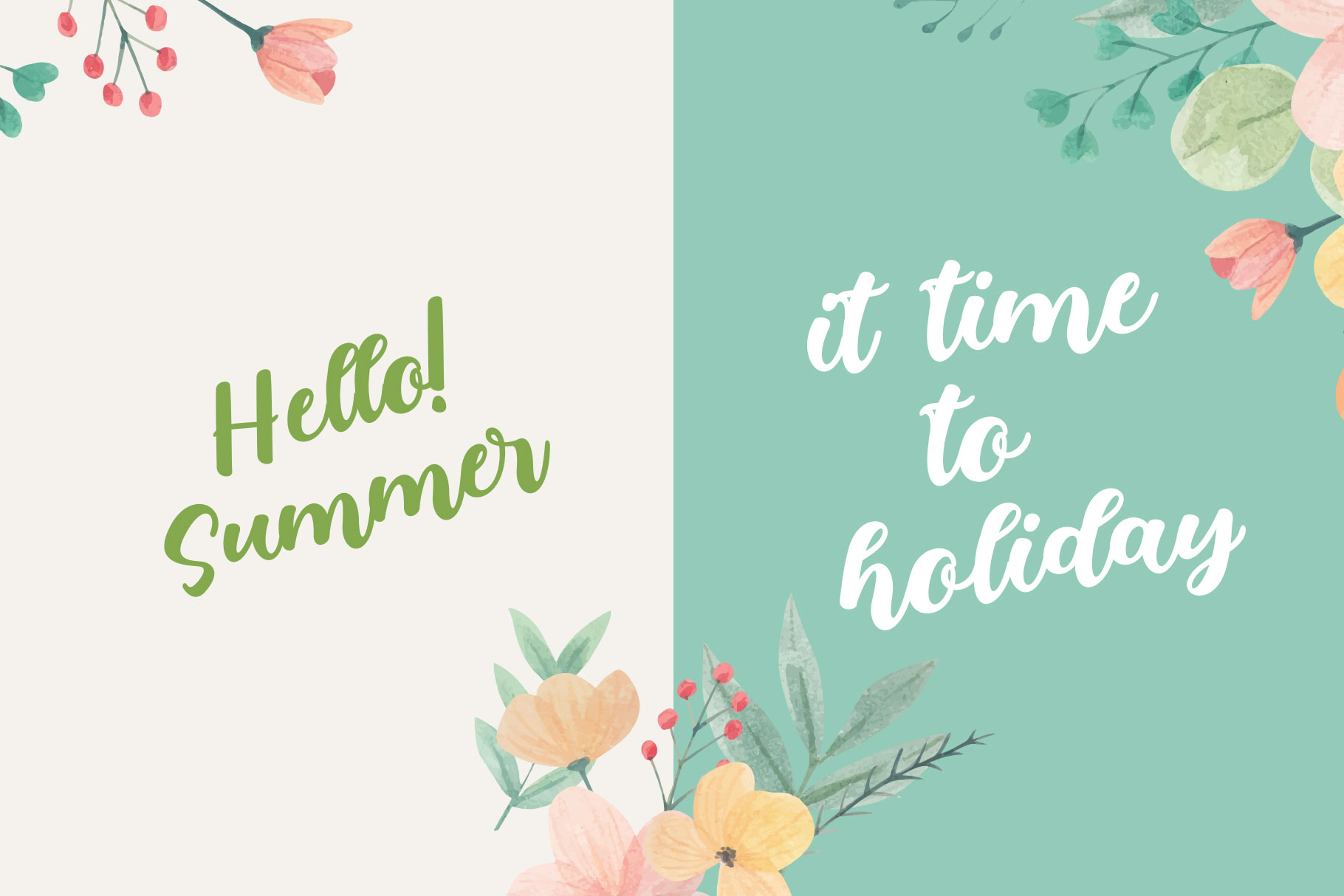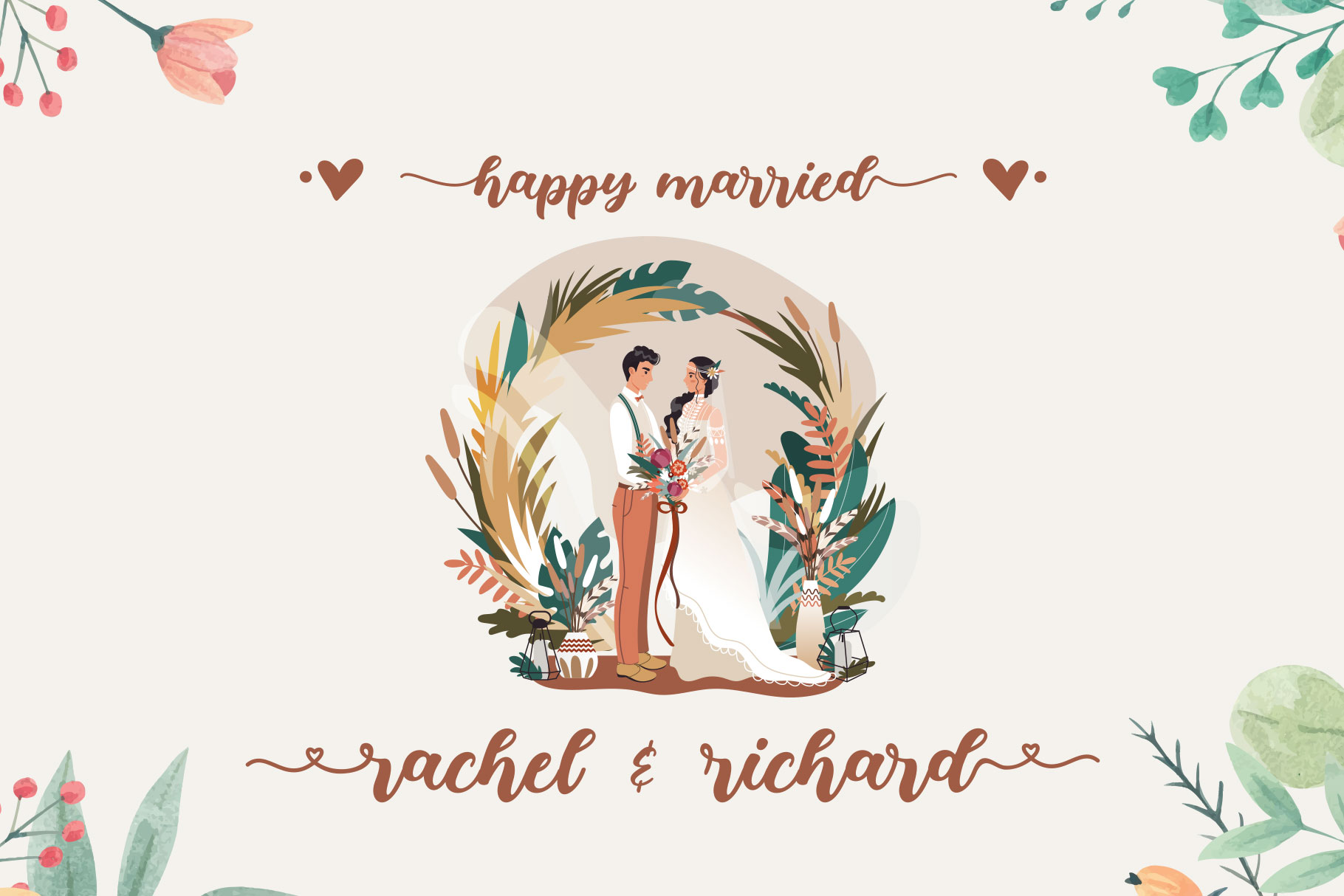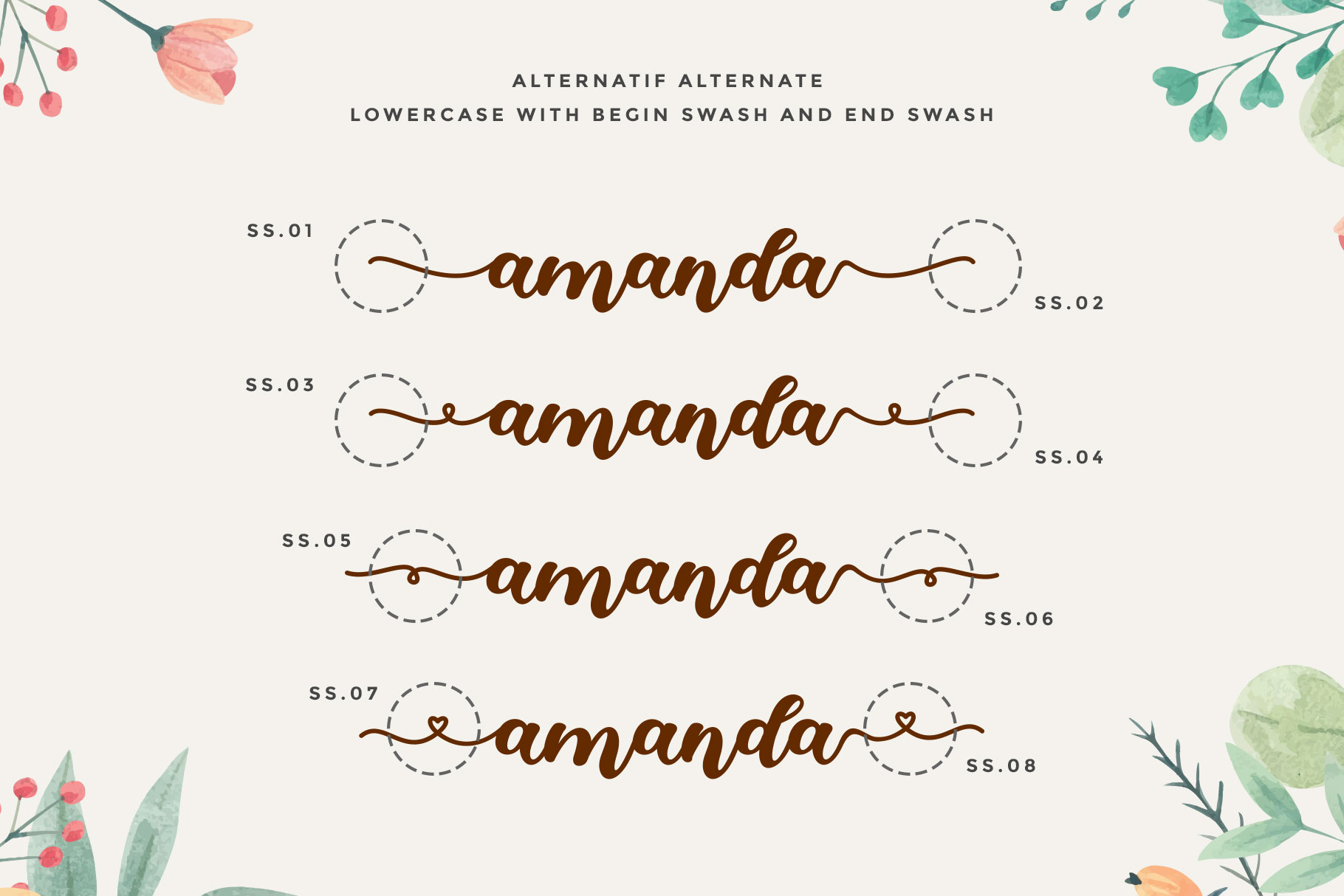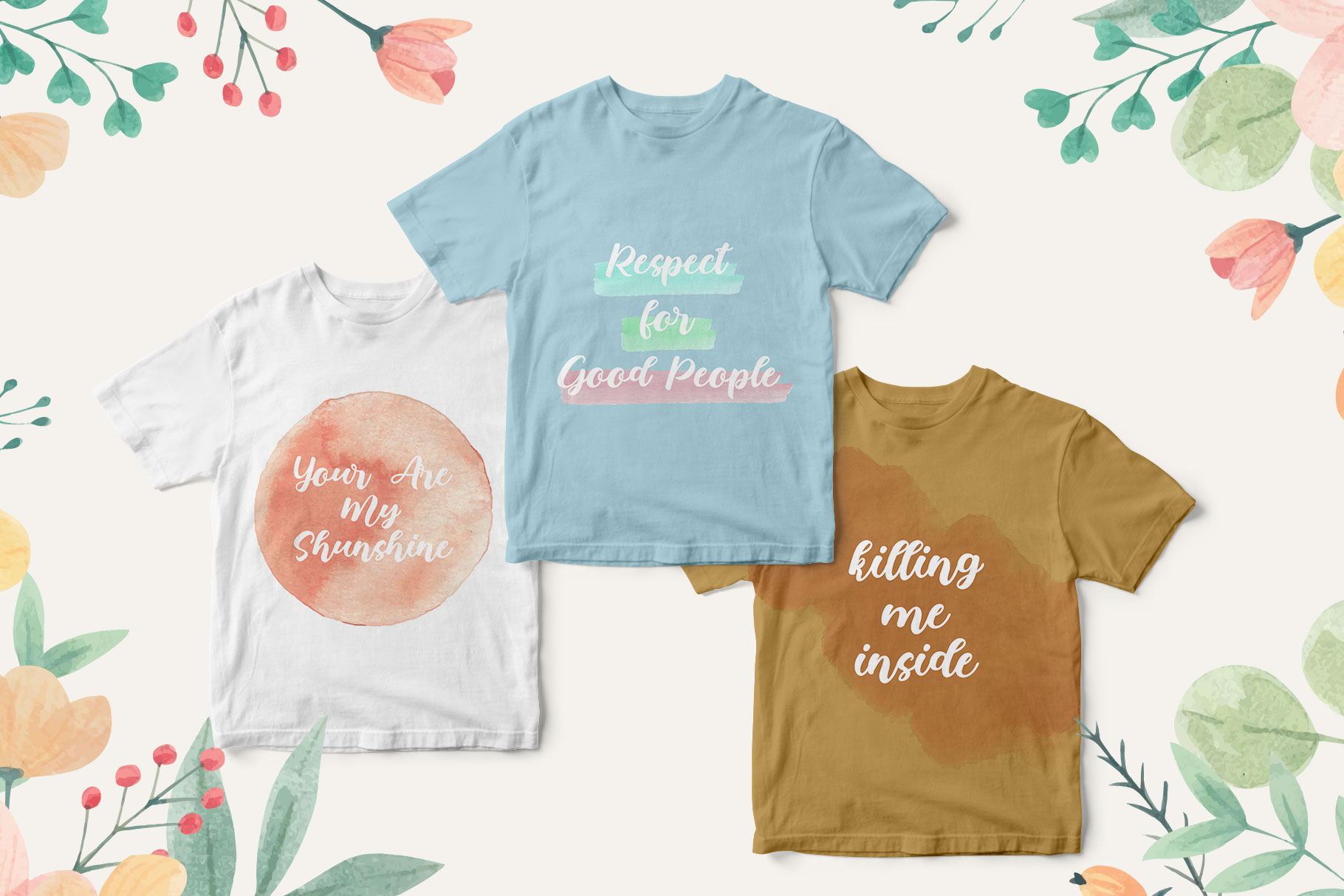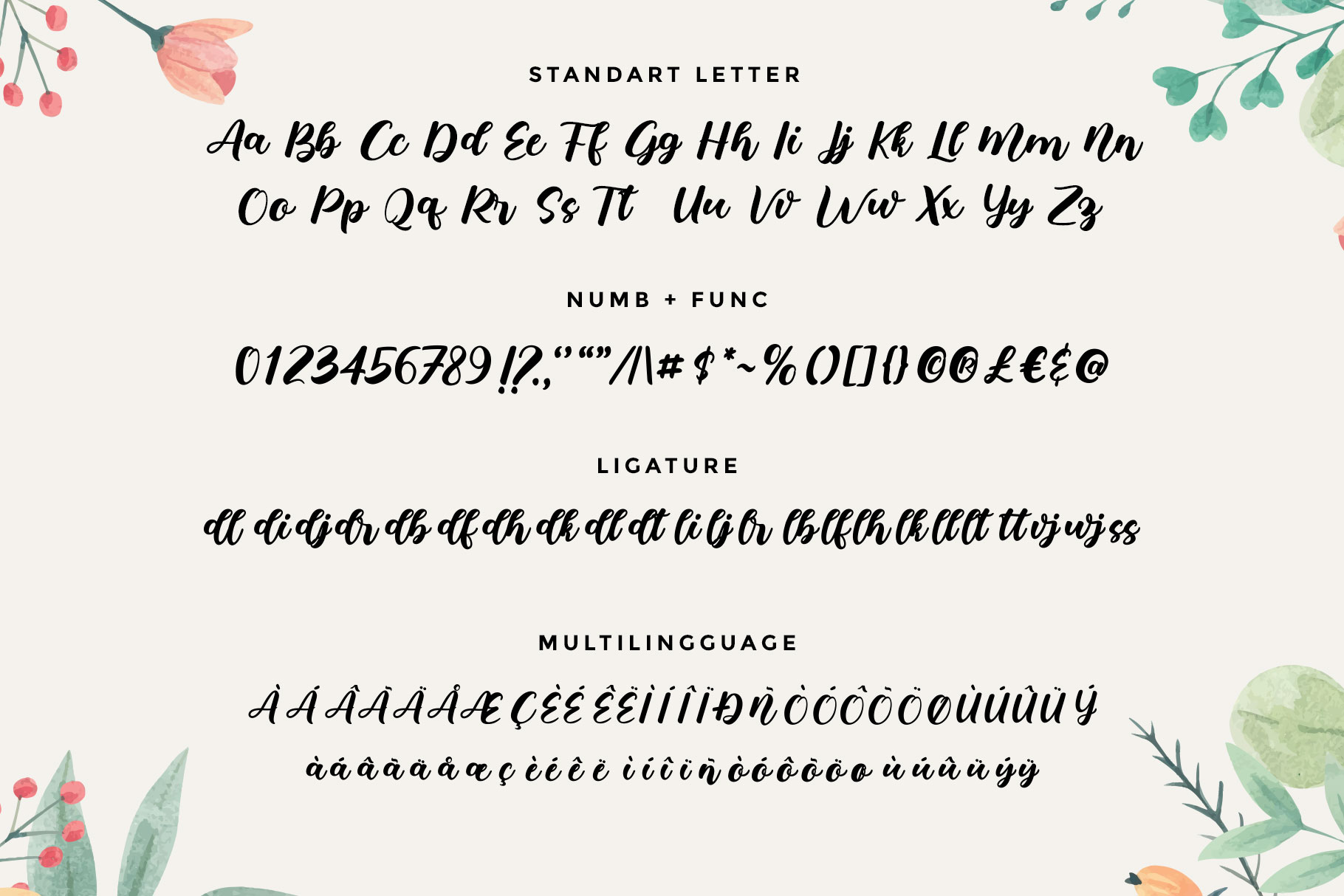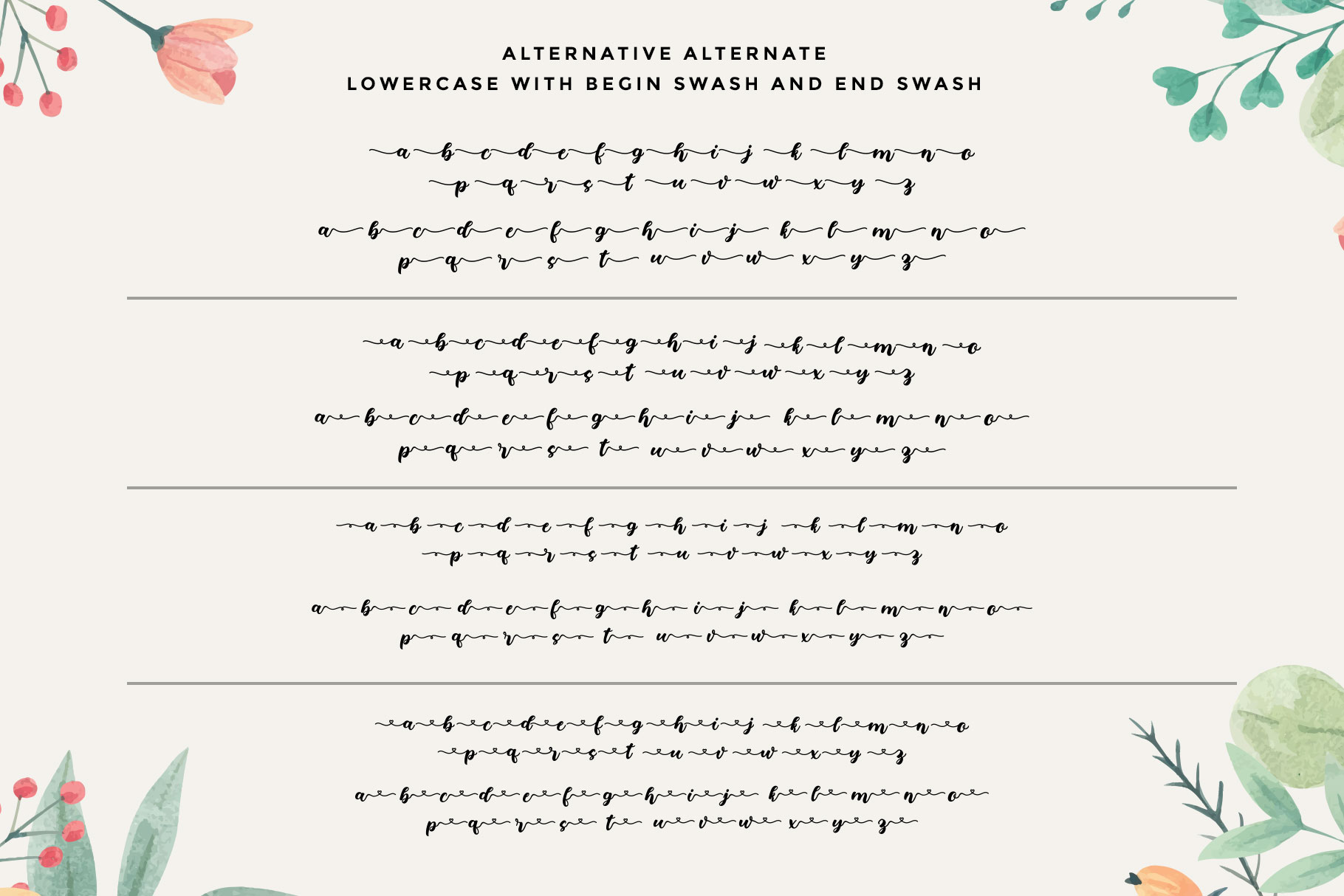
Love Shine Handwritten Font
Proudly present Another lovely calligraphy font “Love Shine”.
Love Shine is lovely font  which can be interpreted professional. I keep this font looks modern, feminine, girly, catchy and easy to use also i make 4 alternative alternate for begin.swash and and swash so you can choice for you design. Love Shine is the great choice for watermark on wedding organizer, signature or signature logo design, quotes, album cover, business card and many other design project. Love Shine is here to make your work or your business to high level!!!
• Basic Latin A-Z and a-z
• alternate and ligature
• Begining swash and end swash
• opentype feauture